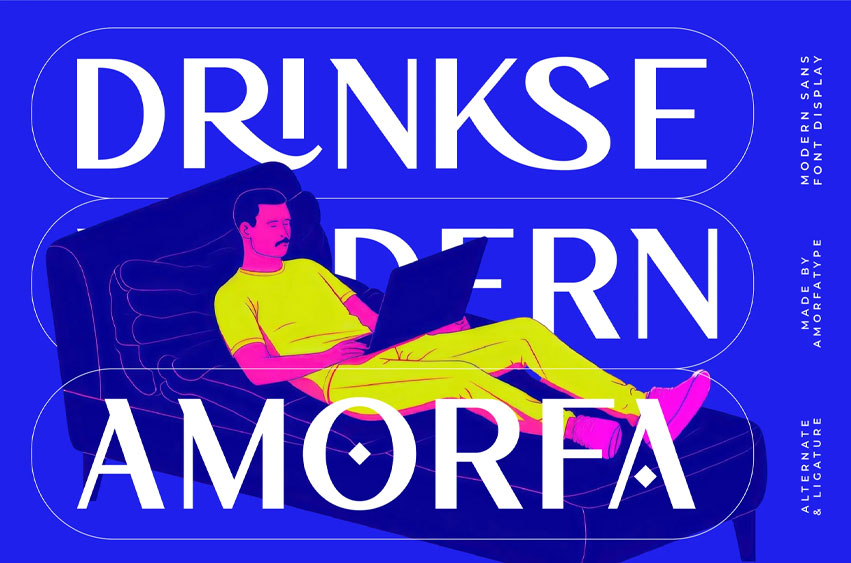
Drinkse Font is a clean, bold, and modern sans serif display font that brings a fresh and confident vibe to your designs. With its geometric forms, balanced proportions, and smooth terminals, Drinkse delivers a contemporary look that’s both striking and versatile. 💬
Perfect for headlines, branding, web interfaces, and editorial layouts — Drinkse is built to stand out while keeping things crisp and readable.
- Bold & Clean Design – Ideal for logos, posters, packaging, and more
- Modern & Display-Ready – Designed for visual impact
- Multilingual Support – Includes a wide range of international characters
- Optimized for Print & Screen – Sharp typography across all platforms
- Complete Character Set: Uppercase, lowercase, numerals, punctuation, and ligatures
Drinkse is the go-to font for creatives looking to add style, clarity, and modern edge to their work.